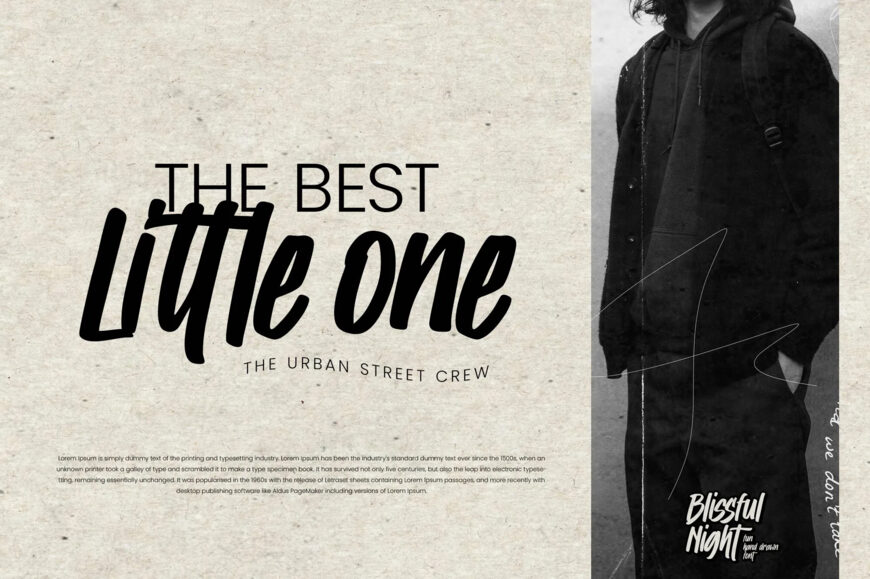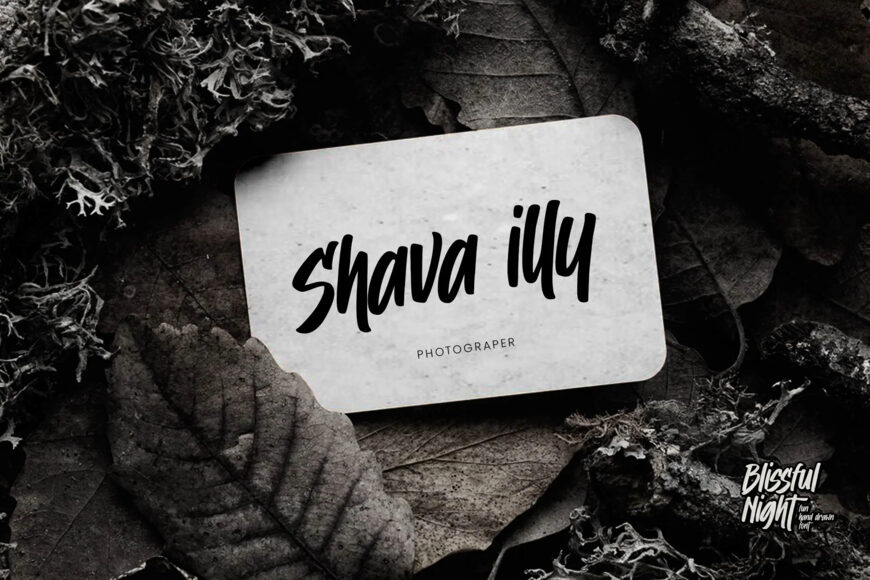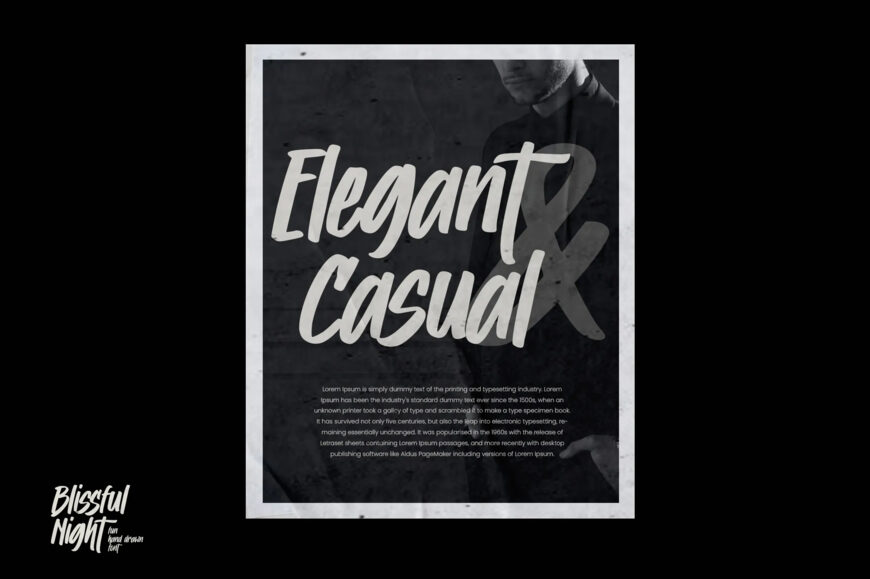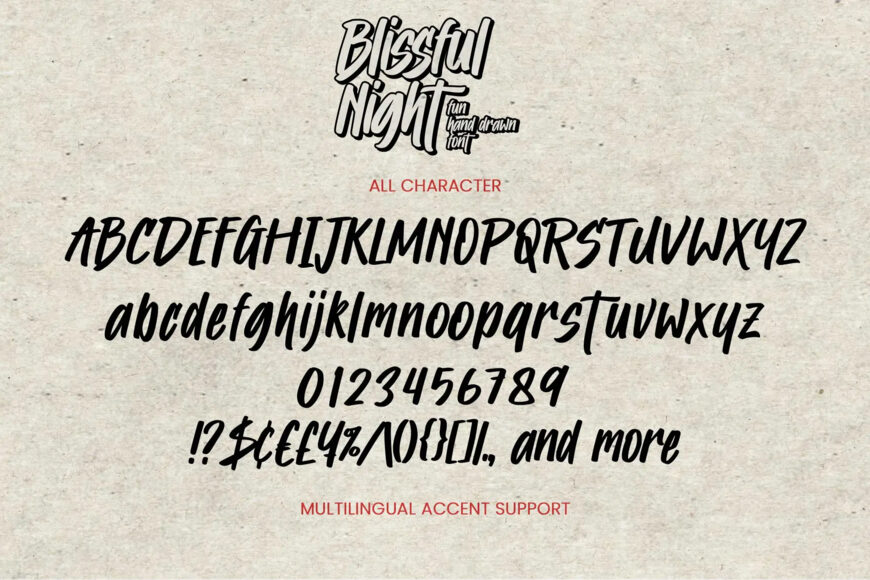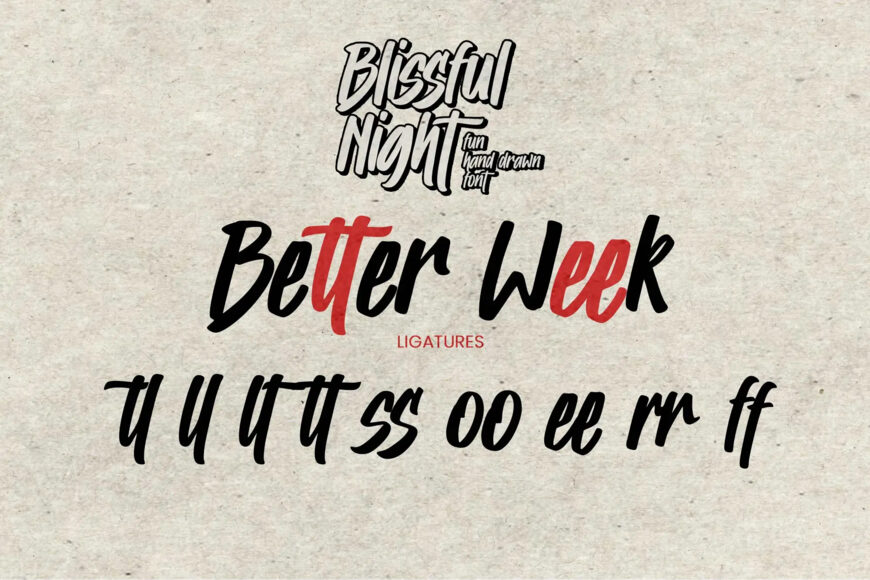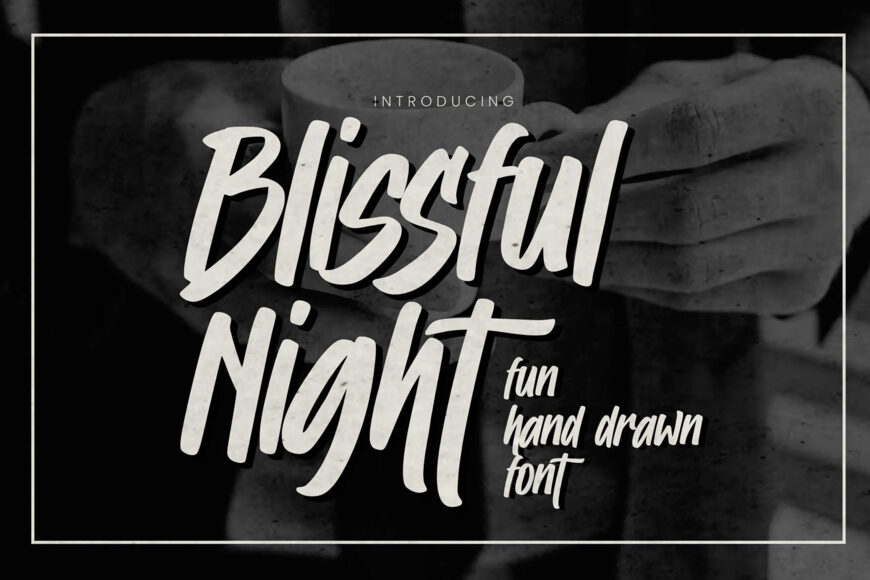
Blissful Night Font
Blissful Night is a hand-drawn brush font featuring condensed letterforms, natural textured edges, and a playful, urban aesthetic. With an energetic, casual feel, it includes uppercase and lowercase characters, numerals, punctuation, ligatures, and multilingual accent support.
Best used for: Streetwear branding, modern posters, album art, social media graphics, and creative photo overlays.